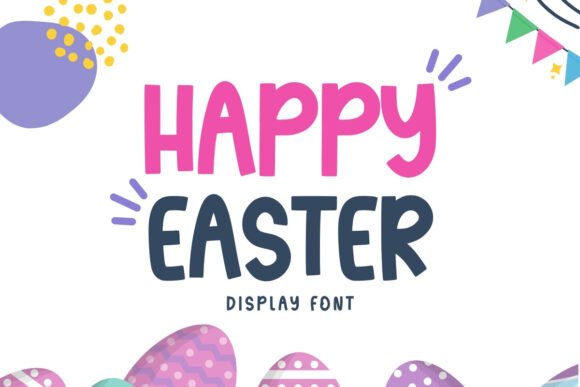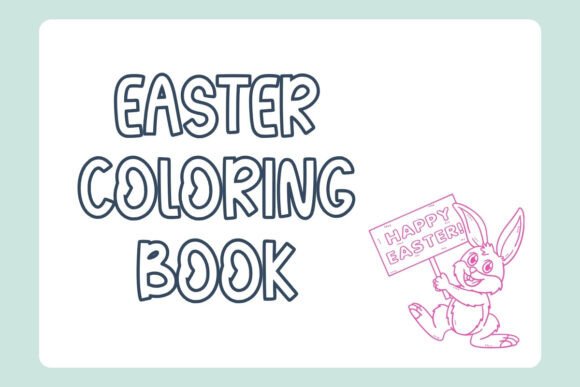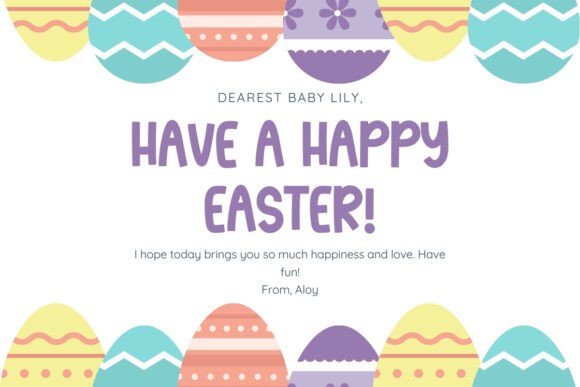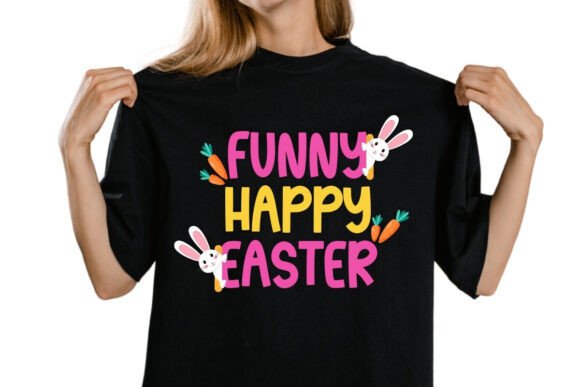
Magic Easter Font
About the Magic Easter Font
From logos to headlines, the Magic Easter Font is the perfect choice for making a lasting impression. Magic Easter is a quirky, bold display font. Add this bold font to your design and watch how it brings it to life. Get inspired by her unique and beautiful style and add it to your favorite designs!
Magic Easter’s playful boldness makes it ideal for headlines, posters, and branding projects requiring a fun, attention-grabbing aesthetic. It works exceptionally well for children’s products, Easter-themed designs, and anything needing a touch of whimsical charm. However, its highly decorative nature makes it unsuitable for body text or UI elements where readability is paramount.
Consider pairing Magic Easter with a clean sans-serif like Open Sans for a balanced contrast; the simplicity of the sans-serif will ground the font’s playful energy. Alternatively, a classic serif like Garamond could add a touch of sophistication, creating a unique juxtaposition of styles.
The font’s core personality is undeniably playful and expressive, yet maintains a friendly approachability. Avoid using it in contexts demanding seriousness or professionalism.
Magic Easter Font Usage Examples
Magic Easter Font Example